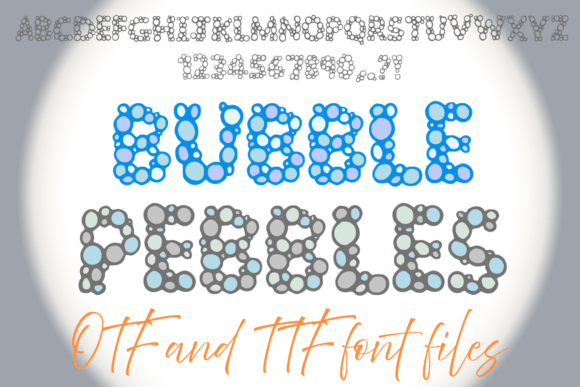
Bubble Pebble Font: Add a Joyful Touch to Your Designs
The world of typography is vast and diverse, with numerous font styles to choose from, each with its unique characteristics and uses. One such font that has gained popularity for its playful and quirky appeal is the Bubble Pebble Font. This cute and charming display font is designed to add an incredibly joyful touch to your designs, making them stand out in a crowd.
What is Bubble Pebble Font?
Bubble Pebble Font is a display font that features rounded, bubbly shapes, reminiscent of pebbles or stones. The font’s design is inspired by the smooth, curved lines of natural stones, which gives it a friendly and approachable feel. The font’s unique shape and playful vibe make it perfect for designs that require a touch of whimsy and fun.
Key Features of Bubble Pebble Font
- Cute and Quirky Design: The font’s bubbly shape and rounded lines give it a playful and charming appeal.
- Display Font: Designed specifically for display purposes, such as headings, titles, and captions.
- Easy to Read: Despite its playful design, the font is easy to read, making it perfect for use in a variety of designs.
- Versatile: Suitable for use in various design projects, from children’s books to branding and advertising materials.
How to Use Bubble Pebble Font in Your Designs
Bubble Pebble Font is a versatile font that can be used in a variety of design projects. Here are some ideas on how to incorporate this beautiful display font into your creative work:
Design Ideas to Showcase Bubble Pebble Font
- Children’s Books and Educational Materials: The font’s playful design makes it perfect for use in children’s books, educational materials, and activity sheets.
- Branding and Packaging: Use Bubble Pebble Font to add a touch of whimsy to your brand’s packaging, labels, and marketing materials.
- Social Media Graphics: Create eye-catching social media graphics, such as Facebook posts, Instagram stories, and Twitter headers, using this font.
- Party Invitations and Decorations: The font’s playful design makes it perfect for use in party invitations, decorations, and other celebratory materials.
Benefits of Using Bubble Pebble Font
Using Bubble Pebble Font in your designs offers several benefits, including:
Benefits of Using Bubble Pebble Font
- Unique and Eye-Catching: The font’s playful design makes it stand out from more traditional fonts, adding a unique touch to your designs.
- Emotional Connection: The font’s friendly and approachable feel can help create an emotional connection with your audience.
- Versatility: Suitable for use in a variety of design projects, from digital to print materials.
- Easy to Pair: The font’s simple design makes it easy to pair with other fonts, allowing you to create visually appealing combinations.
Tips for Using Bubble Pebble Font Effectively
To get the most out of Bubble Pebble Font, follow these tips:
Tips for Using Bubble Pebble Font Effectively
- Use it Sparingly: While the font is playful and fun, it’s best to use it sparingly to avoid overwhelming your design.
- Pair it with Neutral Fonts: Pair Bubble Pebble Font with neutral fonts to create a balanced and harmonious design.
- Experiment with Colors: The font’s playful design makes it perfect for experimenting with bright and bold colors.
- Consider the Context: Consider the context in which you’ll be using the font, and adjust the size, color, and style accordingly.
Bubble Pebble Font is a unique and charming display font that can add a joyful touch to your designs. Its playful design, versatility, and ease of use make it perfect for a variety of design projects. By following the tips outlined above, you can effectively use Bubble Pebble Font to create eye-catching and engaging designs that stand out in a crowd.